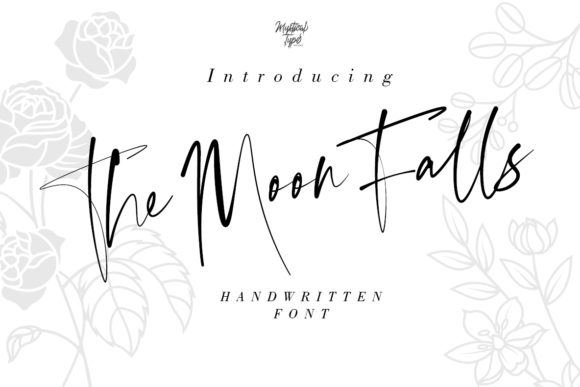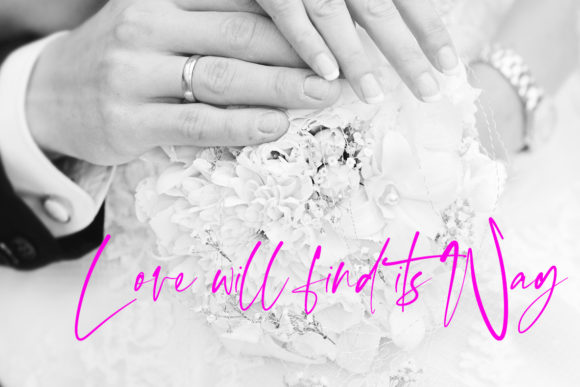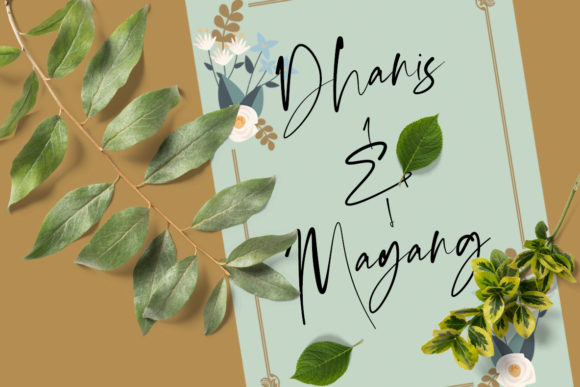
About The Moon Falls Font
The The Moon Falls is an agile and expressive script. It’s fully hand drawn and was designed to recreate natural handwriting perfectly. These connected and flowing double letters are far more authentic and guaranteed to give your text extra quality and difference.
This is the perfect choice for stylish branding, logo projects, product packaging, handwriting quotes & editorial design.